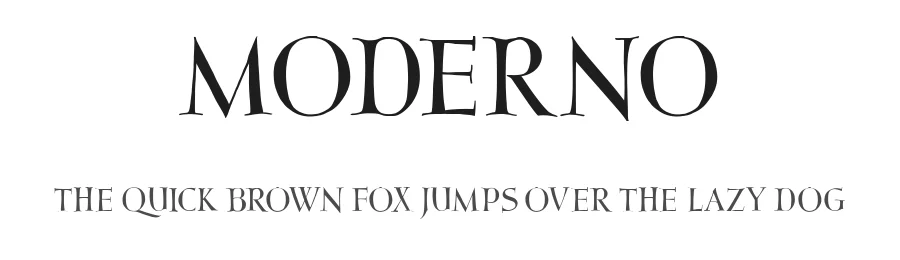
About Abed Font
Abed Serif Font is a creative and modern font perfect for use in logo designs, resume, headlines, banners and templates etc.
You can use it to showcase old and vintage touch to your projects.
Abed Font is a versatile serif font that works for both headings and body text. Pair it with a contrasting sans-serif or slab serif font to add visual interest and a clear distinction between titles and body copy.